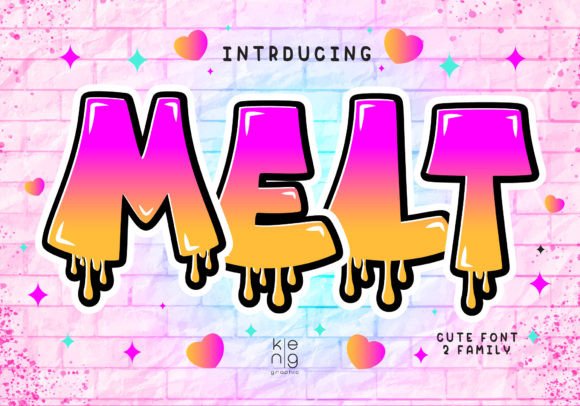
Take your designs to the next level with Melt Font, the ultimate display font that'll make your words leap off the page. This extraordinary creation from Keng Graphic is guaranteed to captivate and enchant, turning your designs into captivating masterpieces. Ideal for a myriad of applications such as comic books, online games, cards, love shirts, posters, movie titles, and social media posts yearning for a touch of youthful energy and boldness.
With a personality as fiery and captivating as its name suggests, Melt Font commands attention and instills a sense of wonder in every reader. Its unique and enchanting style transforms ordinary text into an extraordinary visual spectacle, leaving a lasting impression that lingers long after the page is turned. Its distinctiveness guarantees that your designs will be unforgettable, setting them apart from the monotonous crowd.
Melt Font's alluring charm is not limited to its aesthetic prowess. It's a font of substance, armed with superior legibility and versatility that empowers you to convey your message with clarity and elegance. Whether you're crafting heartfelt love letters, designing eye-catching social media posts, or creating engaging posters, Melt Font seamlessly adapts to your creative vision, ensuring your words resonate with impact.
Unleash your creativity and experience the transformative power of Melt Font. Dive into a world of boundless possibilities, where your designs transcend the ordinary and embrace the extraordinary. Let Melt Font ignite your imagination and set your designs ablaze with its fiery passion. Embrace the font that's as captivating as a love story and as bold as a blazing inferno. Melt Font – The font that melts hearts and sets designs aflame.